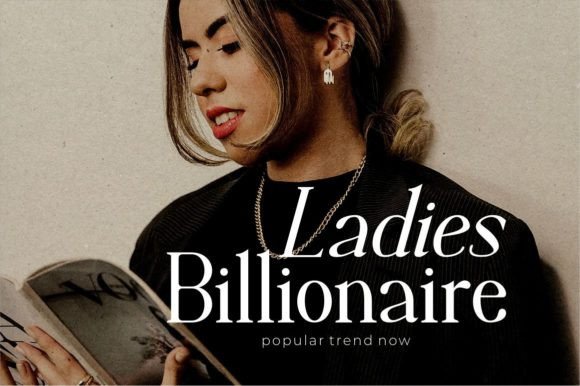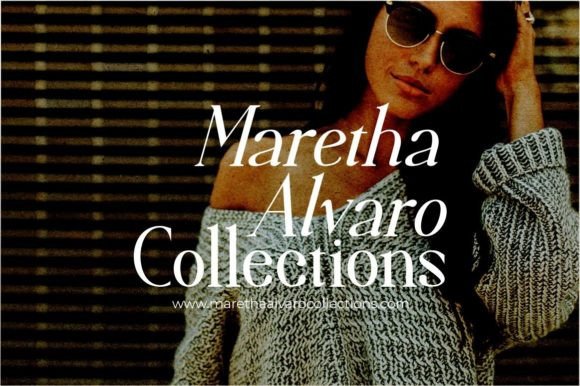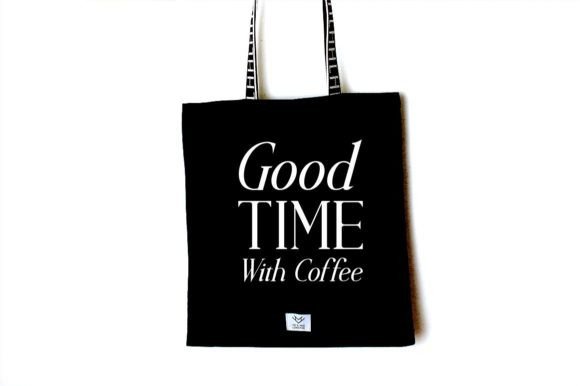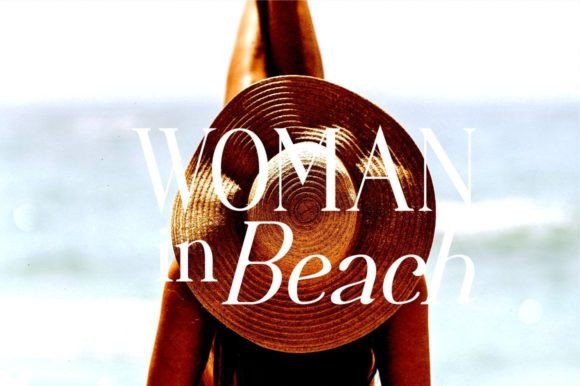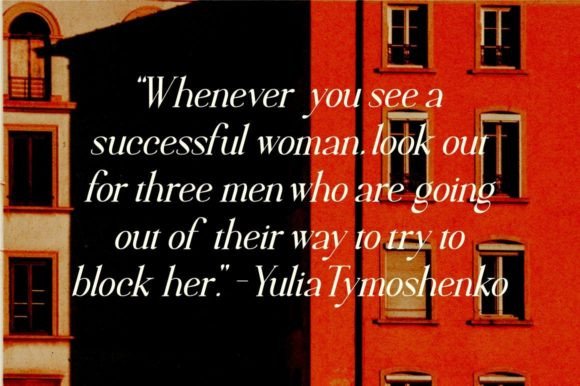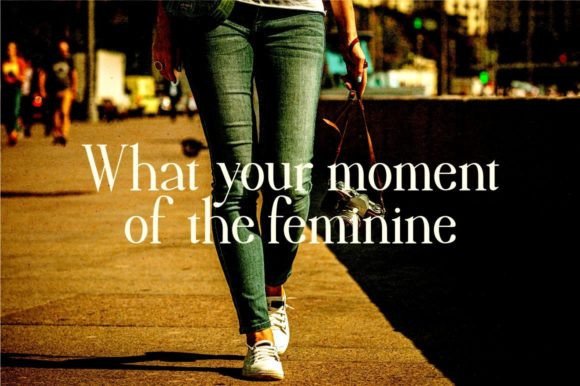
Introduction to Sispectly Harmonies Font
Have you ever stared at a blank page, struggling to find the perfect font to match your creative vision? I know I have. It’s that moment when the words just won’t flow, and you’re left wondering if you’ll ever find the perfect design resource to bring your project to life. But what if I told you that there’s a font that can transport you back to a bygone era of elegance and sophistication?
Enter the enchanting Sispectly Harmonies Font, a nostalgic and stylish serif font that’s sure to captivate designers and creatives alike. With its high-quality letters and transparent background, this font is a game-changer for any design project that requires a touch of classic charm. And the best part? It’s available for free download, making it an invaluable resource for designers of all levels.
Key Features of Sispectly Harmonies Font
- Unique blend of modern and vintage elements, perfect for creative projects.
Honest Review: Sispectly Harmonies Font
I recently had the chance to work with the Sispectly Harmonies Font, and I’m excited to share my honest thoughts on this design resource.
What works well: ✨ The font is highly customizable, with a wide range of weights and styles to choose from. This makes it an excellent choice for creative projects that require a consistent look and feel. The font is also free to download, which is a huge plus for designers on a budget. Plus, it’s a great addition to any design resource library.
- High-quality design with a transparent background
- Customizable with a range of weights and styles
However, there are a few limitations to consider: ⚠️ The font is not suitable for use in situations where a bold, attention-grabbing font is required. Additionally, the font’s transparency can sometimes make it difficult to read, especially on darker backgrounds.
Overall, I’m impressed with the Sispectly Harmonies Font, and I would definitely recommend it to designers looking for a high-quality, free design resource for their creative projects.
Tips for Getting the Most Out of Sispectly Harmonies Font
For the best results, use Sispectly Harmonies Font on a transparent background to create a clean and modern look. You can also experiment with different font sizes and styles to add visual interest to your design project.
Common Use Cases for Sispectly Harmonies Font
Sispectly Harmonies Font is perfect for a variety of design projects, including social media graphics, presentations, posters, and branding materials. Its high-quality design and free download make it a valuable resource for designers and creatives.